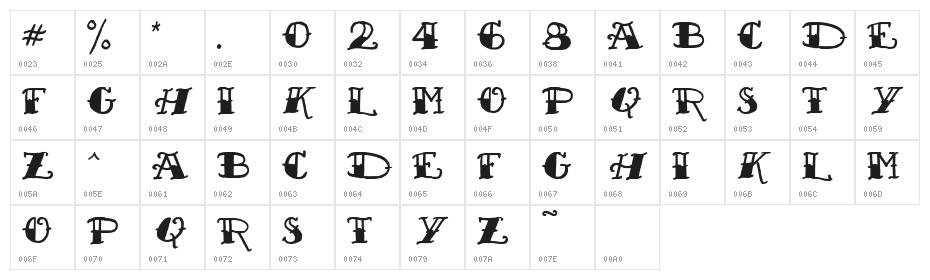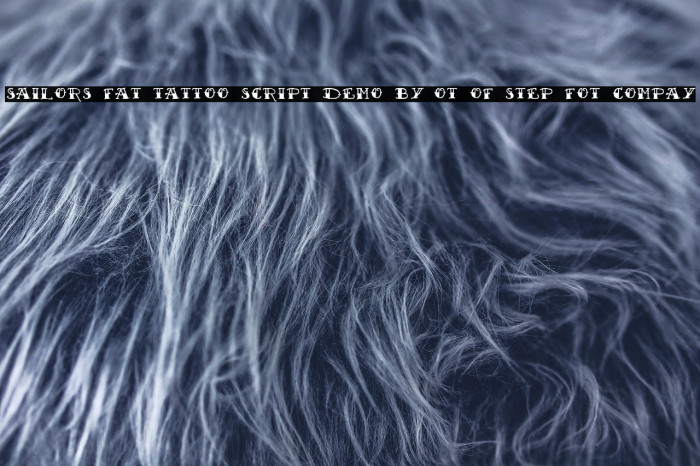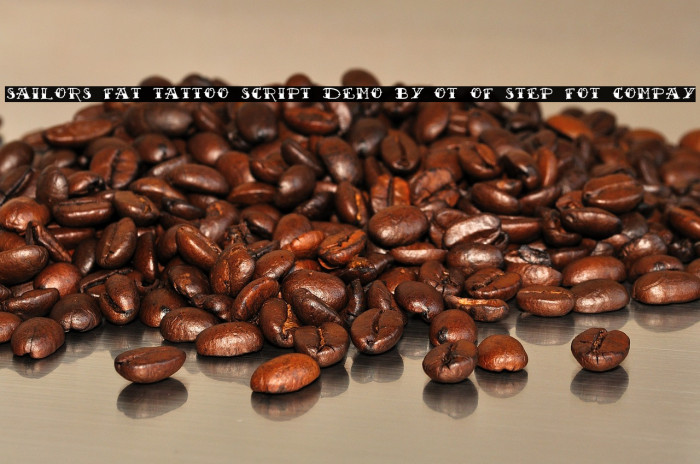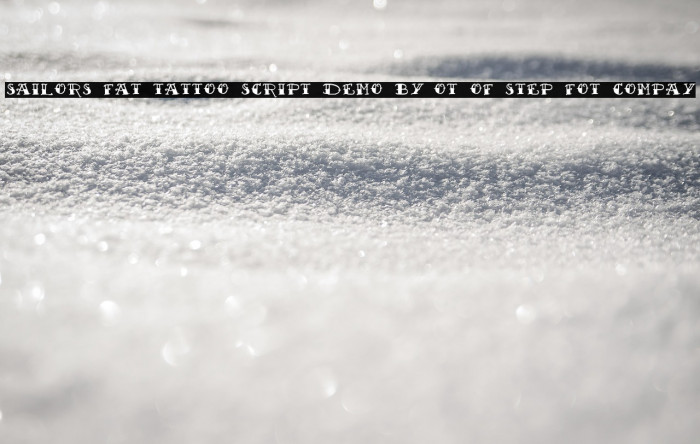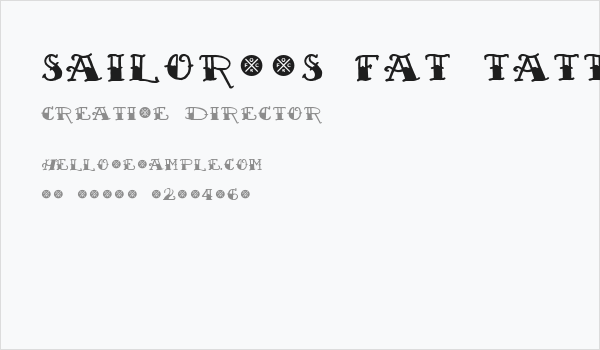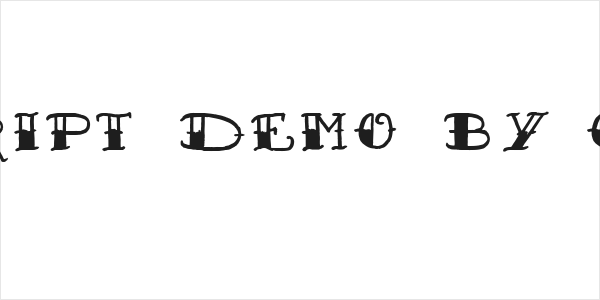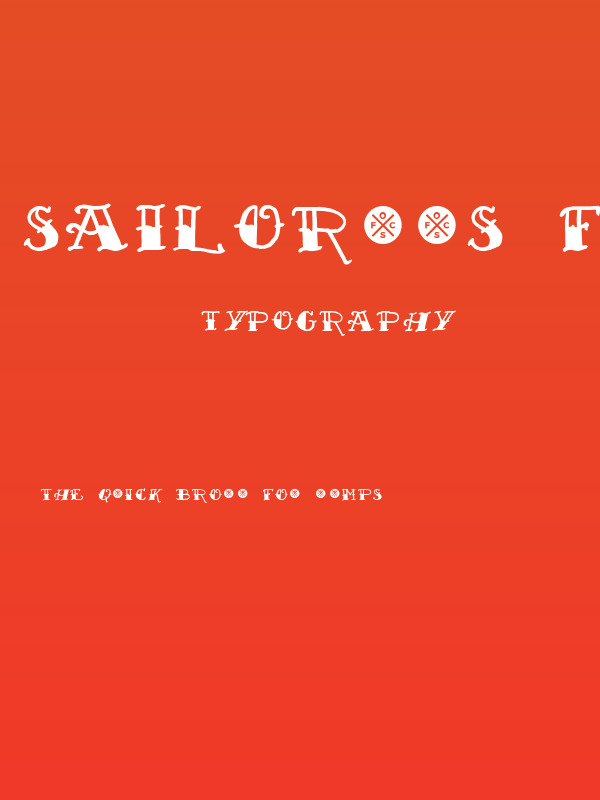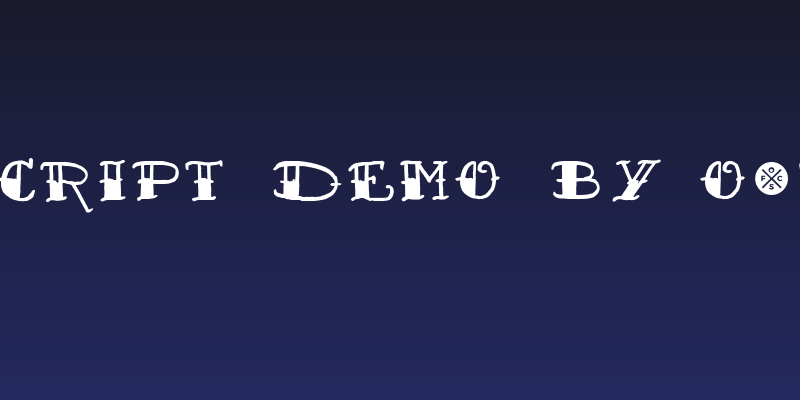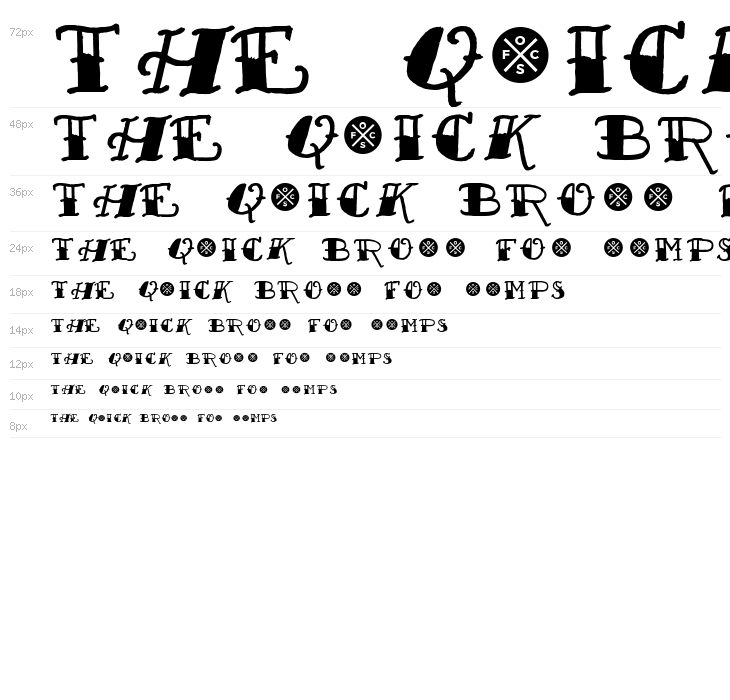
Sailor's Fat Tattoo Script Demo by Out of Step Font Company Font
Sailor's Fat Tattoo Script Demo by Out of Step Font Company Description
This font exhibits a bold, decorative style with a vintage flair, reminiscent of classic tattoo artistry. The characters are heavily stylized, featuring thick strokes and unique embellishments that give each letter a distinct personality. The uppercase letters are particularly ornate, with exaggerated serifs and flourishes that evoke a sense of maritime adventure and nostalgia. The numbers and special characters maintain this aesthetic, ensuring a cohesive look across all glyphs. The overall design is both eye-catching and intricate, making it suitable for projects that require a strong visual impact.
| Overall Style | Vintage, Decorative |
| Proposed Projects | Ideal for tattoo designs, vintage-themed posters, branding for nautical or retro businesses, and decorative signage. |